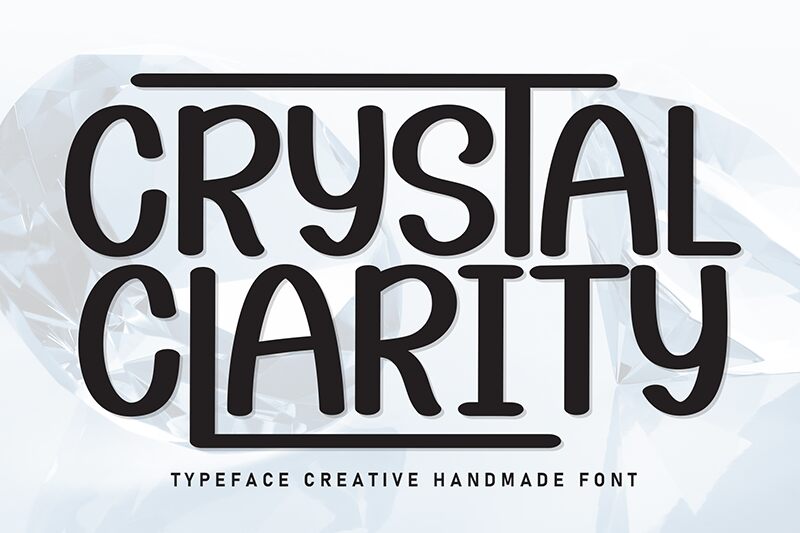
Crystal Clarity
Crystal Clarity font is a handwritten creation by Scratchones, offering a unique blend of retro and geometric styles. Infused with casual elegance and informal charm, this font showcases mid-century modern influence. Its distinctive character makes it suitable for vintage-themed designs and versatile enough to work well in branding or packaging.